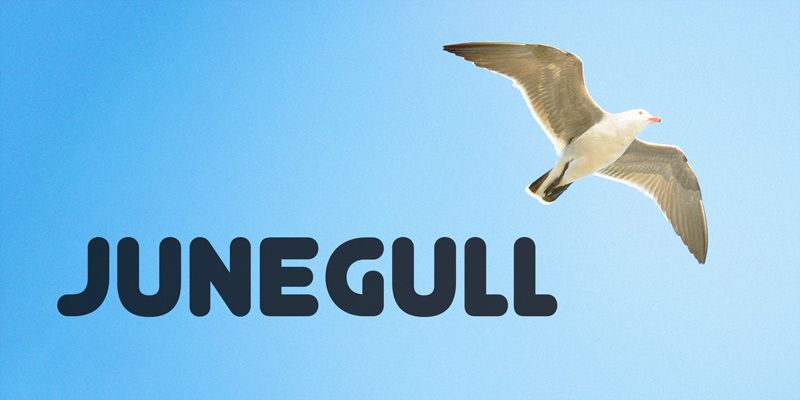
Junegull specimen
Junegull
rounded
Junegull is a smart, hugworthy, allcaps rounded sans. It’s technological, yet soft . . . like a killer robot teddy bear.